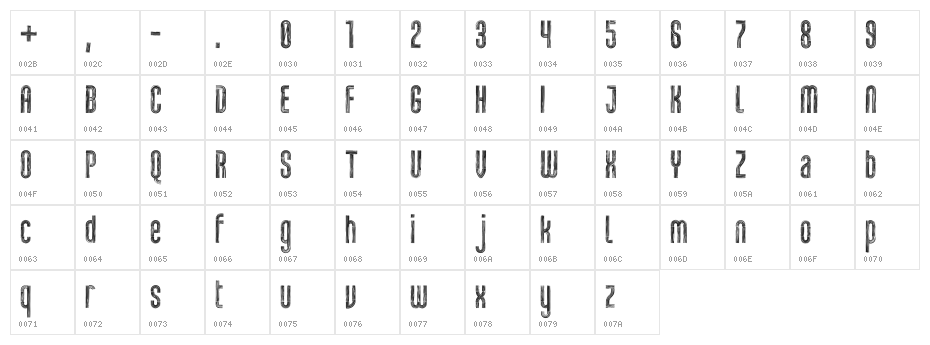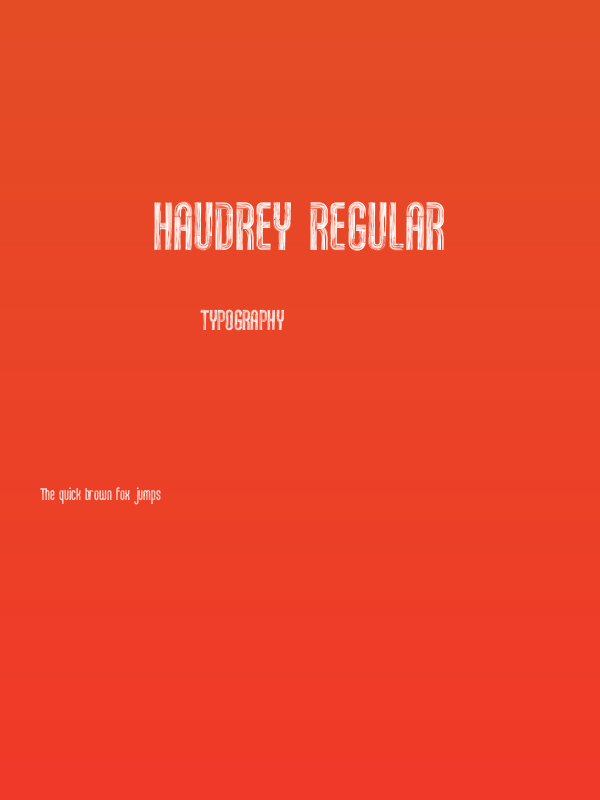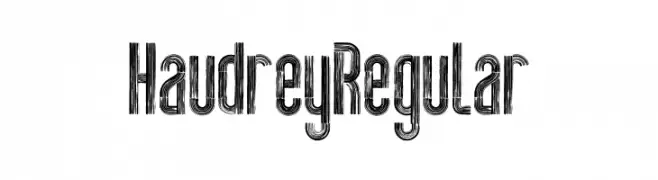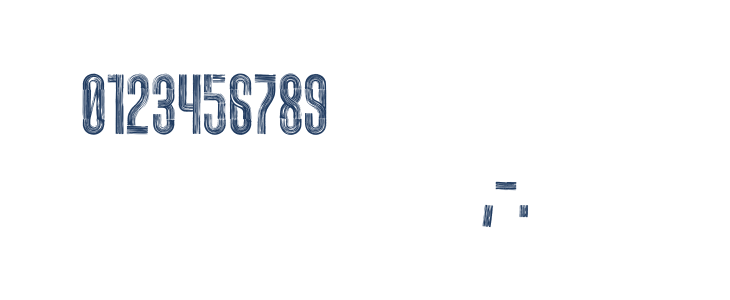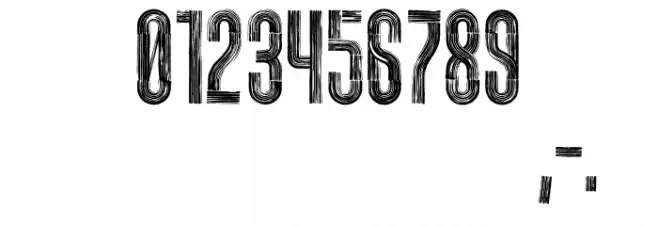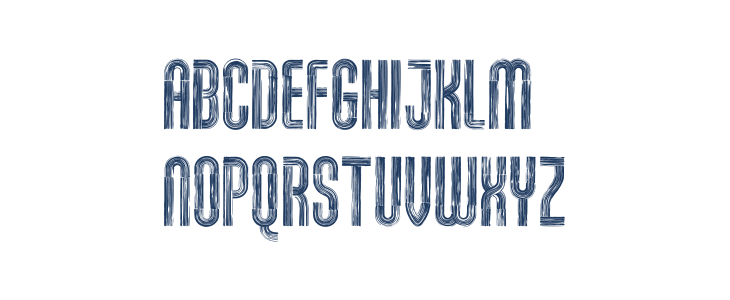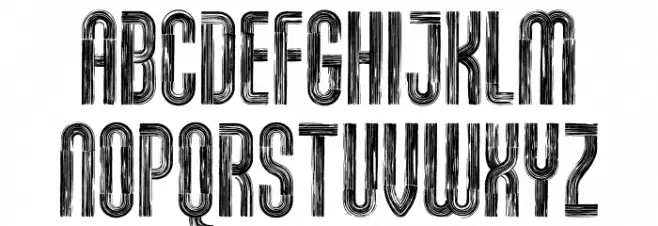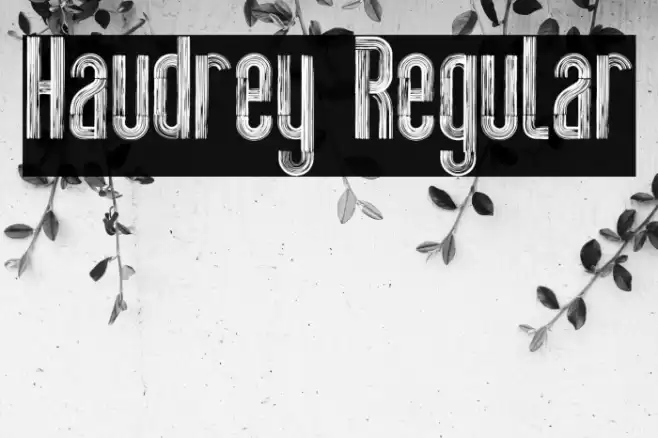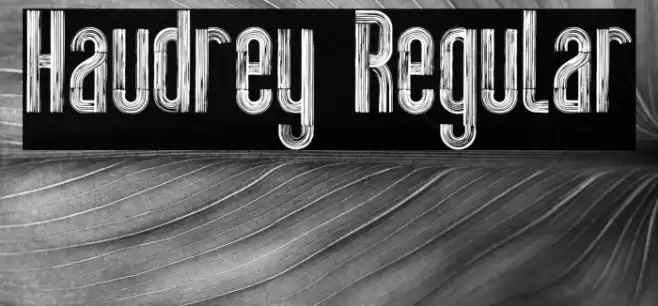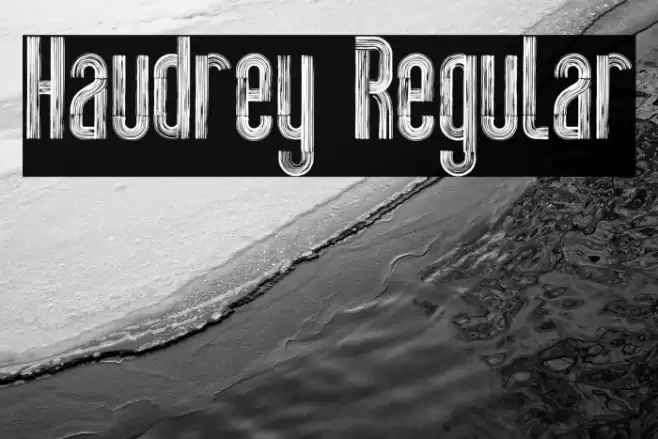
Haudrey Regular Font
Haudrey Regular Description
A decorative sans-serif font featuring tall, condensed letterforms with multiple horizontal and vertical sketch-like strokes, creating a textured, hand-drawn effect. The characters maintain consistent height and width, with rounded corners and a modern, artistic appearance.
| Overall Style | Decorative, Modern, Artistic |
| Proposed Projects | Posters, album covers, branding for creative industries, event invitations, artistic packaging. |